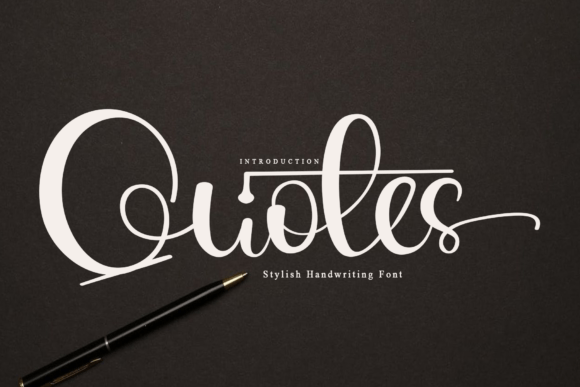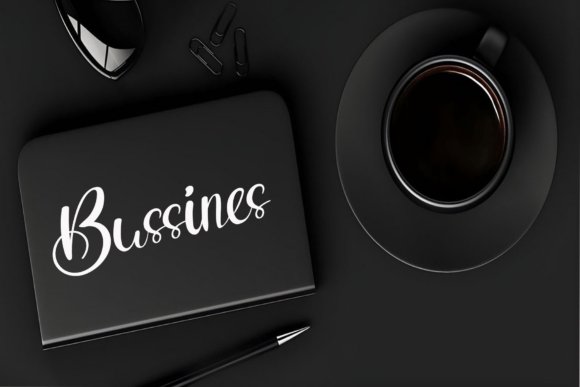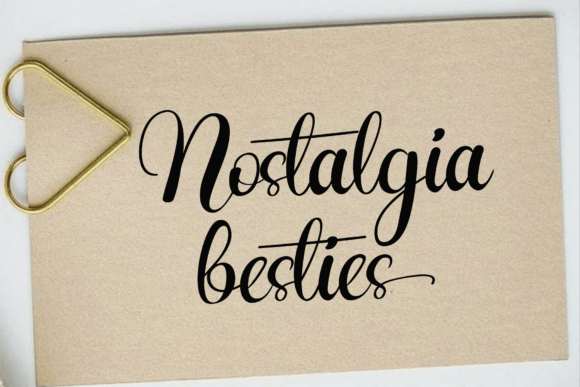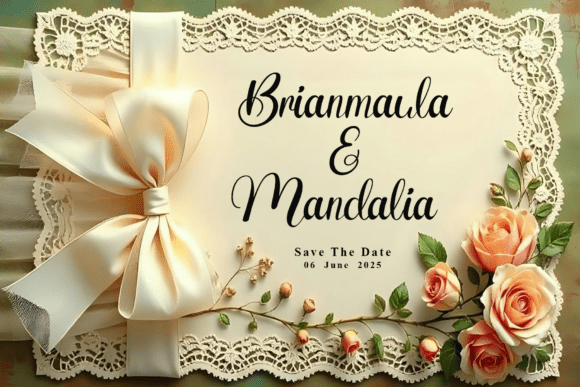
Quotes Font
About the Quotes Font
Introducing the Quotes Font, a beautifully crafted typeface designed to elevate your creative projects. Quotes is a delicate handwritten font carefully crafted for a cool and unique design. This font can be used to write letters, invitations, food products, titles, and more.
Quotes excels in applications requiring a touch of handwritten charm, such as short headlines, invitations, or logos for boutique brands. Its delicate nature makes it ideal for packaging of artisanal food products or handcrafted goods. However, avoid using it for lengthy body text or UI elements; its low x-height and inconsistent stroke weight would hinder readability.
The font’s personality is undeniably elegant and friendly, with a touch of playfulness. This makes it a strong choice for projects conveying warmth and sophistication.
Consider pairing Quotes with a clean sans-serif like Lato for a modern contrast, or a classic serif such as Garamond for a more traditional feel. For a bolder statement, a geometric sans-serif like Futura could be effective.